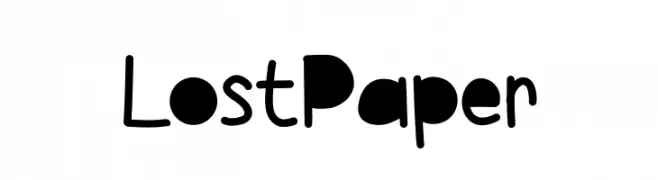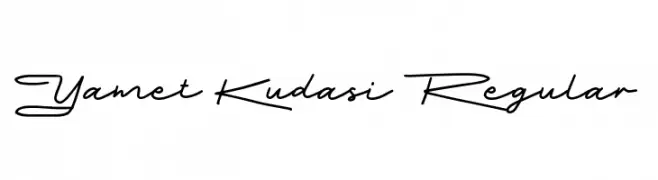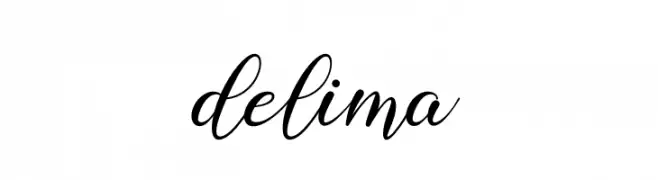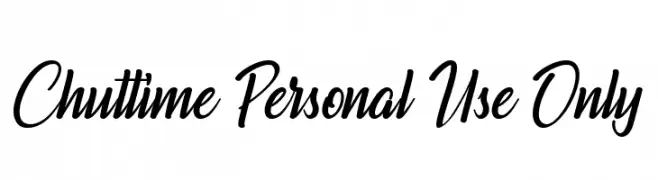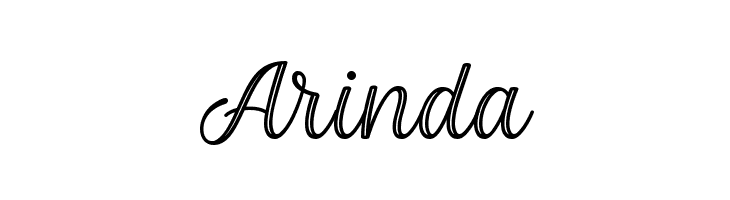
A lively, cursive script font with a handwritten feel and dynamic contrast.
A playful, bold font with rounded, thick strokes and a whimsical, modern style.
A modern, cursive font with a flowing, handwritten style.
A graceful and elegant script font with flowing, cursive characters.
A bold, dynamic font with a halftone effect and slanted characters, ideal for futuristic designs.
A bold, modern font with geometric and rounded elements, offering a strong and structured appearance.
A modern, angular font with rounded edges and an italic slant, offering a light and airy feel.
A futuristic, angular, and italicized font with a condensed style.
A dynamic and elegant script font with flowing, cursive letterforms.
A bold, geometric font with a modern and futuristic style.